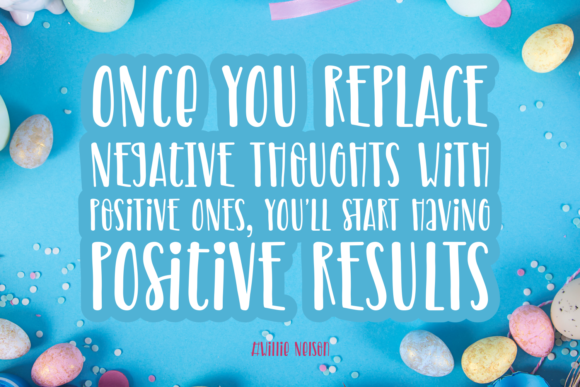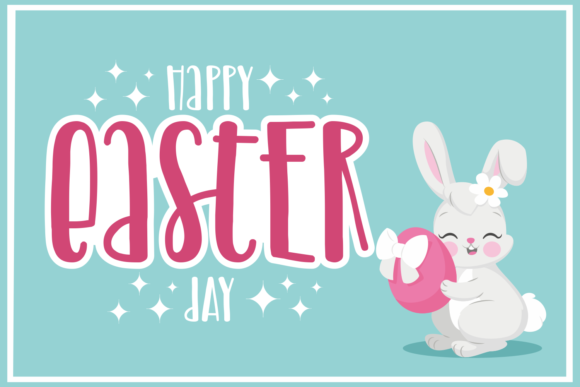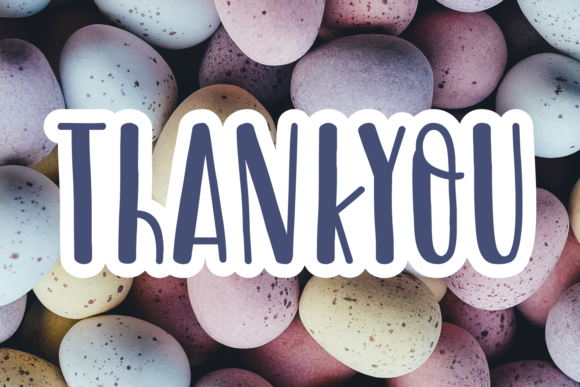
Eastero Font: Elevate Your Designs with a Modern Display Font
Are you looking for a font that combines readability, friendliness, and style? Look no further than Eastero Font. This modern display font is perfect for fashion branding, editorial designs, and any project that requires a touch of sophistication. With its smooth curves and elegant appearance, Eastero Font is sure to become a favorite in your design arsenal.
The Characteristics of Eastero Font
Eastero Font is defined by its smooth, flowing curves that give it a friendly and approachable feel. Its modern design makes it perfect for a wide range of applications, from fashion branding to editorial designs. The font is highly readable, even at smaller sizes, making it versatile for use in various contexts.
Perfect for Fashion Branding
Fashion branding requires a font that exudes style, sophistication, and elegance. Eastero Font meets these requirements and more. Its modern design and smooth curves make it perfect for use in logos, headlines, and other design elements that require a touch of glamour. Whether you’re designing a brand identity for a fashion label or creating marketing materials, Eastero Font is a great choice.
Ideal for Editorial Designs
Editorial designs require a font that is both stylish and readable. Eastero Font fits the bill perfectly. Its elegant appearance and smooth curves make it perfect for use in magazines, newspapers, and other publications. The font is highly versatile and can be used in a variety of contexts, from headlines to body copy.
Why Choose Eastero Font?
There are many reasons why Eastero Font is a great choice for designers and crafters. Here are just a few:
- Readability: Eastero Font is highly readable, even at smaller sizes.
- Friendliness: The font’s smooth curves give it a friendly and approachable feel.
- Style: Eastero Font is a modern display font that exudes style and sophistication.
- Versatility: The font is perfect for a wide range of applications, from fashion branding to editorial designs.
Tips for Using Eastero Font
Here are a few tips for using Eastero Font in your designs:
- Use it as a display font: Eastero Font is perfect for use in headlines, titles, and other design elements that require a touch of style.
- Pair it with a sans-serif font: Eastero Font pairs well with sans-serif fonts, such as Arial or Helvetica.
- Experiment with different sizes: Eastero Font is highly readable, even at smaller sizes. Experiment with different sizes to find the perfect fit for your design.
| Font Name | Eastero Font |
| Author | Dani (7NTypes) |
Eastero Font is a modern display font that is perfect for designers and crafters looking for a stylish and readable font. Its smooth curves and elegant appearance make it perfect for fashion branding, editorial designs, and any project that requires a touch of sophistication. With its versatility, readability, and style, Eastero Font is sure to become a favorite in your design arsenal.